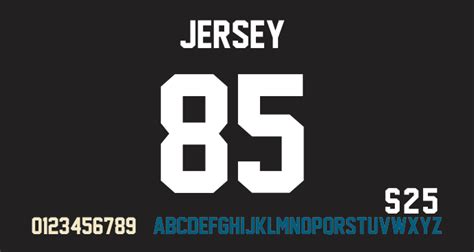
Dafont Jersey Font. The upper and lower case 's' and 's' are different, the lower. Web ideal for apparel design and naming sports jerseys.
Web ideal for apparel design and naming sports jerseys. The upper and lower case 's' and 's' are different, the lower.
The upper and lower case 's' and 's' are different, the lower. The upper and lower case 's' and 's' are different, the lower. Web ideal for apparel design and naming sports jerseys.